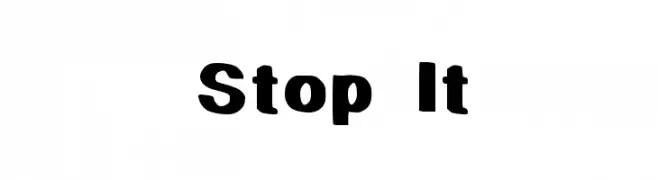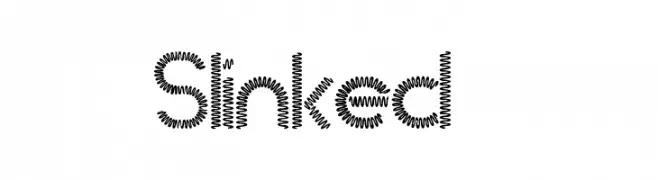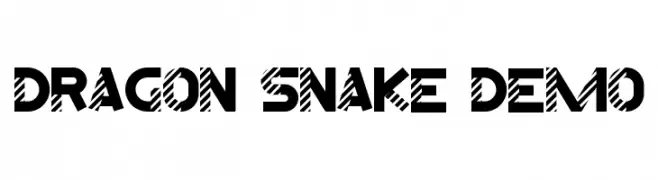
A modern, light sans-serif font with clean lines and balanced proportions.
A fluid and elegant cursive script with medium contrast.
A bold, thick font with rounded edges, perfect for impactful headlines.
A playful, bold font with characters encased in circles, perfect for fun and engaging designs.
A playful, spiral-patterned font with a bold and energetic style.
A minimalist, geometric font with a modern and futuristic style.
A bold, geometric font with a dynamic striped pattern for a modern, industrial look.
A playful, rounded font with a bold, whimsical design.
A bold, playful font with a three-dimensional shadow effect, perfect for decorative uses.
Hand-drawn school-themed dingbat illustrations.